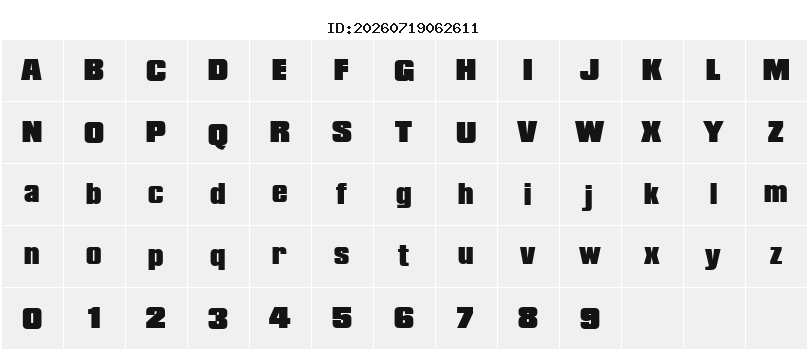
CompactaPEEBla Preview
• Font Name: CompactaPEEBla
• Full Font Name: CompactaPEEBla
About CompactaPEEBla.ttf
CompactaPEEBla.ttf is a modern, elegant sans-serif font designed for ultimate readability and visual harmony. Perfect for branding, headlines, web design, and print materials.